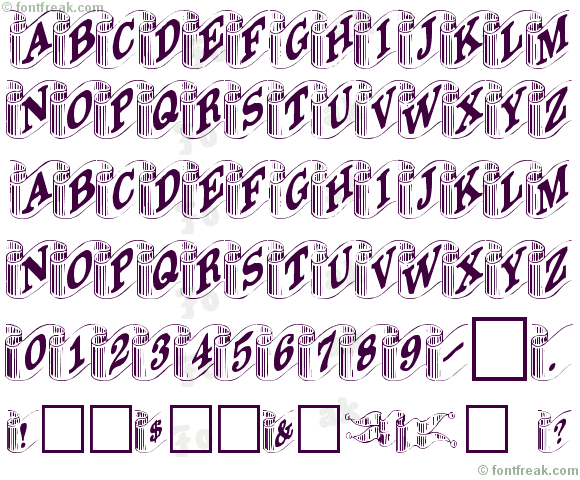
DavysRibbons
About Davy's Ribbons
Davy's Ribbons, designed by David Rakowski in 1991, is a captivating decorative font that combines whimsy and elegance. This freeware font is characterized by its unique ribbon-like forms, which gracefully twist and turn, creating a dynamic visual experience. The strokes exhibit a moderate weight with gentle contrasts, ensuring that the letters maintain a sense of clarity while also providing an artistic flair. The spacing between characters is well-balanced, allowing for readability without sacrificing the font's playful essence.
Ideal for a variety of creative applications, Davy's Ribbons shines in contexts that call for a touch of sophistication and charm. It is particularly well-suited for wedding invitations, where the ribbon motif can enhance the romantic theme. Additionally, this font can elevate movie posters by adding a sense of movement and excitement, making titles pop with personality. Restaurant menus can also benefit from Davy's Ribbons, offering an inviting and stylish presentation that draws patrons in. Content creators looking to add a unique touch to their social media graphics will find this font an excellent choice for eye-catching posts and promotional materials.
Targeting graphic designers, small business owners, and content creators, Davy's Ribbons provides a versatile option for those seeking to infuse their projects with a distinctive character. Its artistic nature can elevate branding and marketing efforts, making it an asset for anyone looking to stand out in a crowded market.
What sets Davy's Ribbons apart is its ability to blend fun and sophistication seamlessly. With its playful design and versatility, this font not only captivates the eye but also provides the flexibility needed for various projects. For those interested in enhancing their designs, the Davy's Ribbons font free download offers an opportunity to incorporate this unique typeface into their creative toolkit.